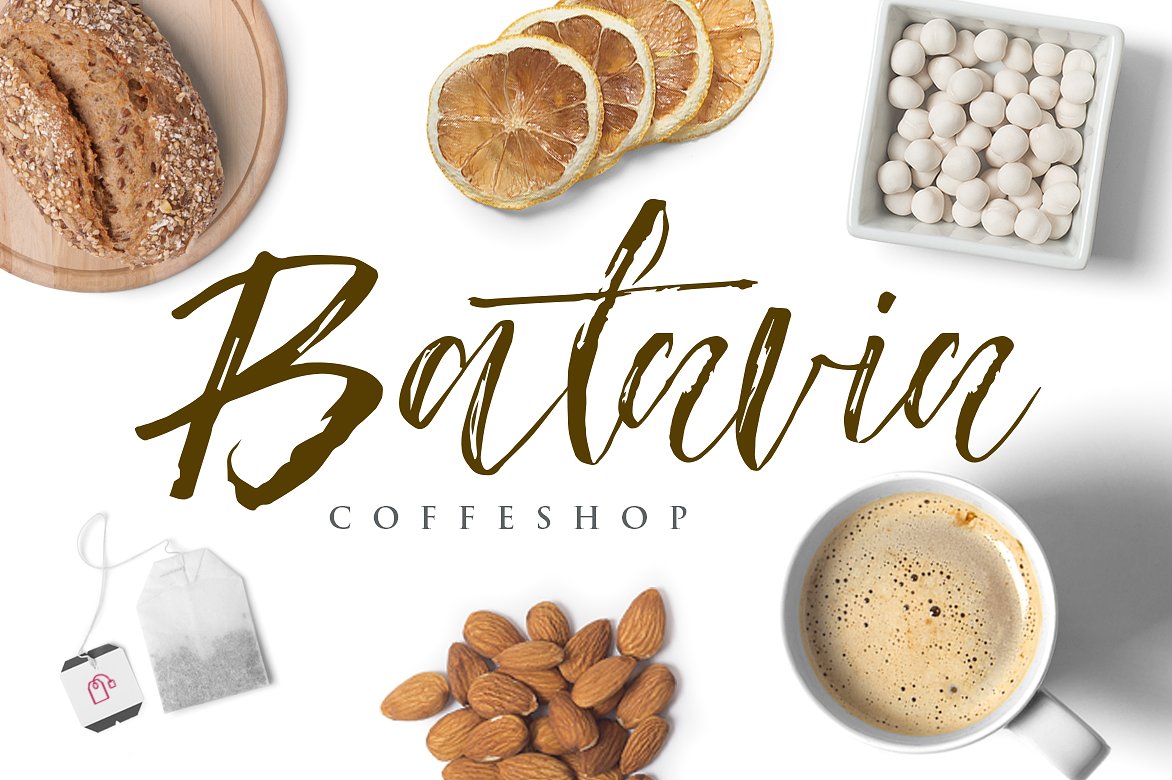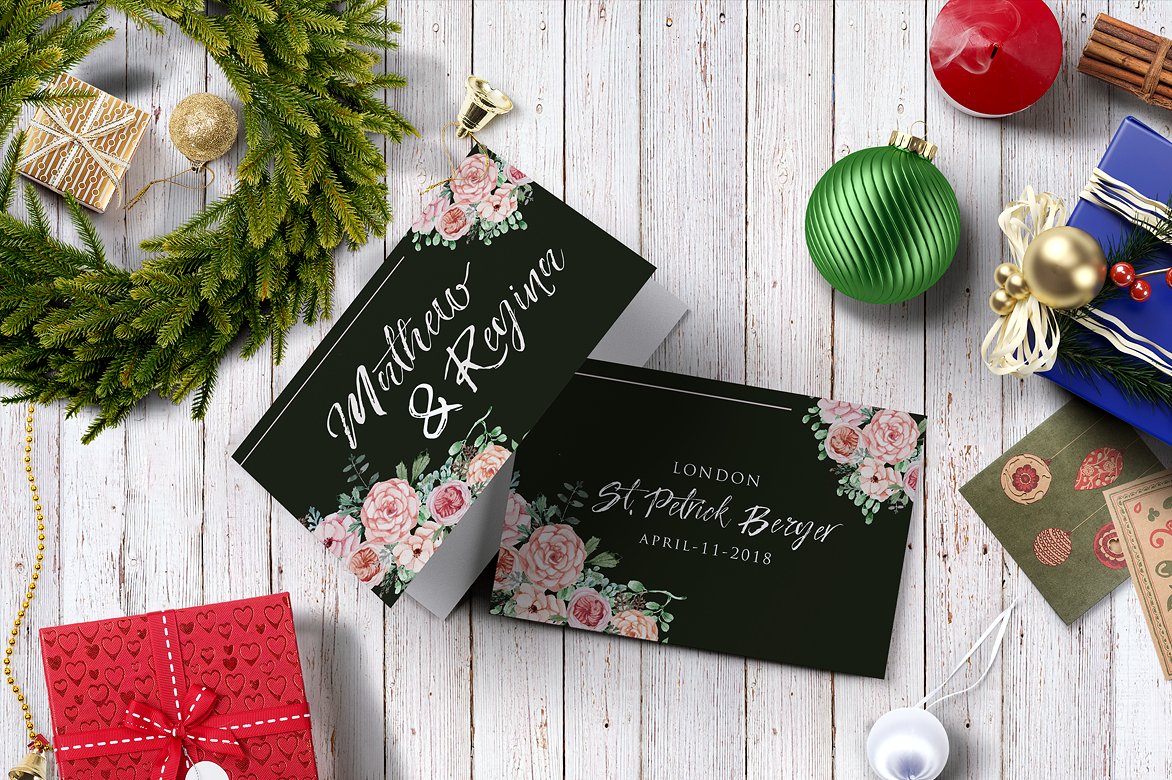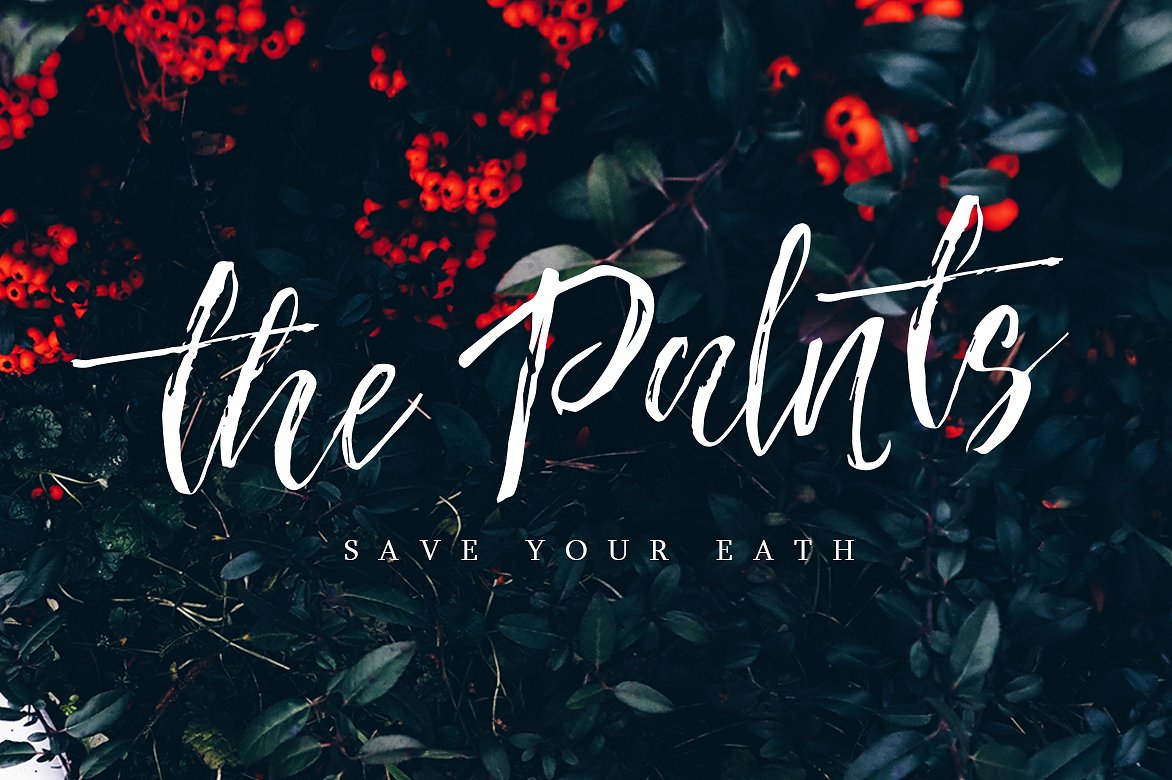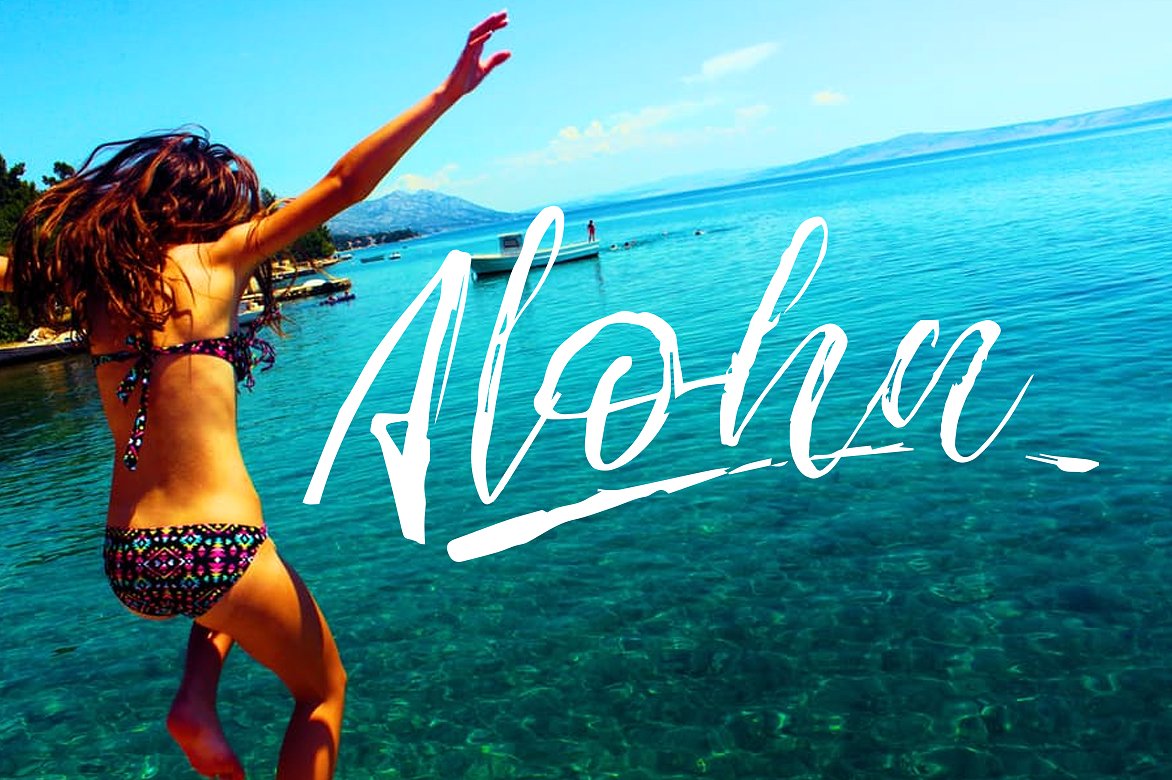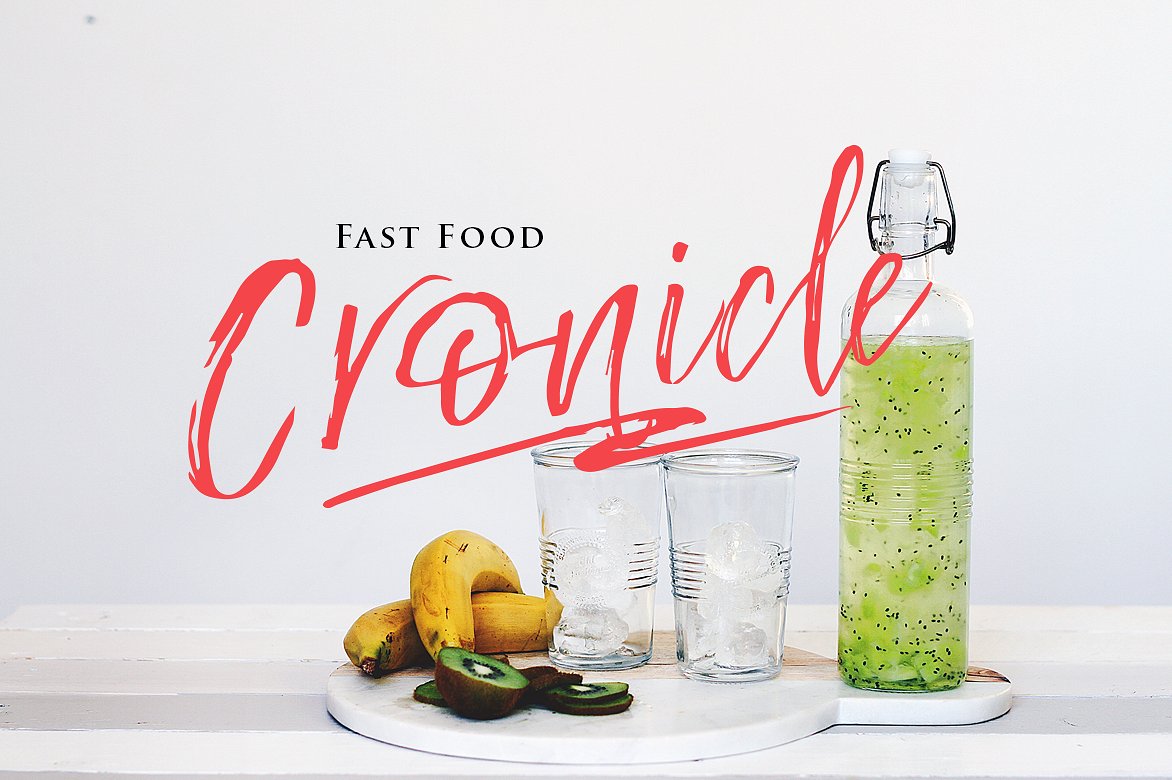
Matelda Font
About Matelda Font
Matelda is a fun and textured handwritten script font, perfect for adding a rustic charm to your designs. This font looks great across a wide range of styles, and can add a touch of understated warmth to any type-based project.